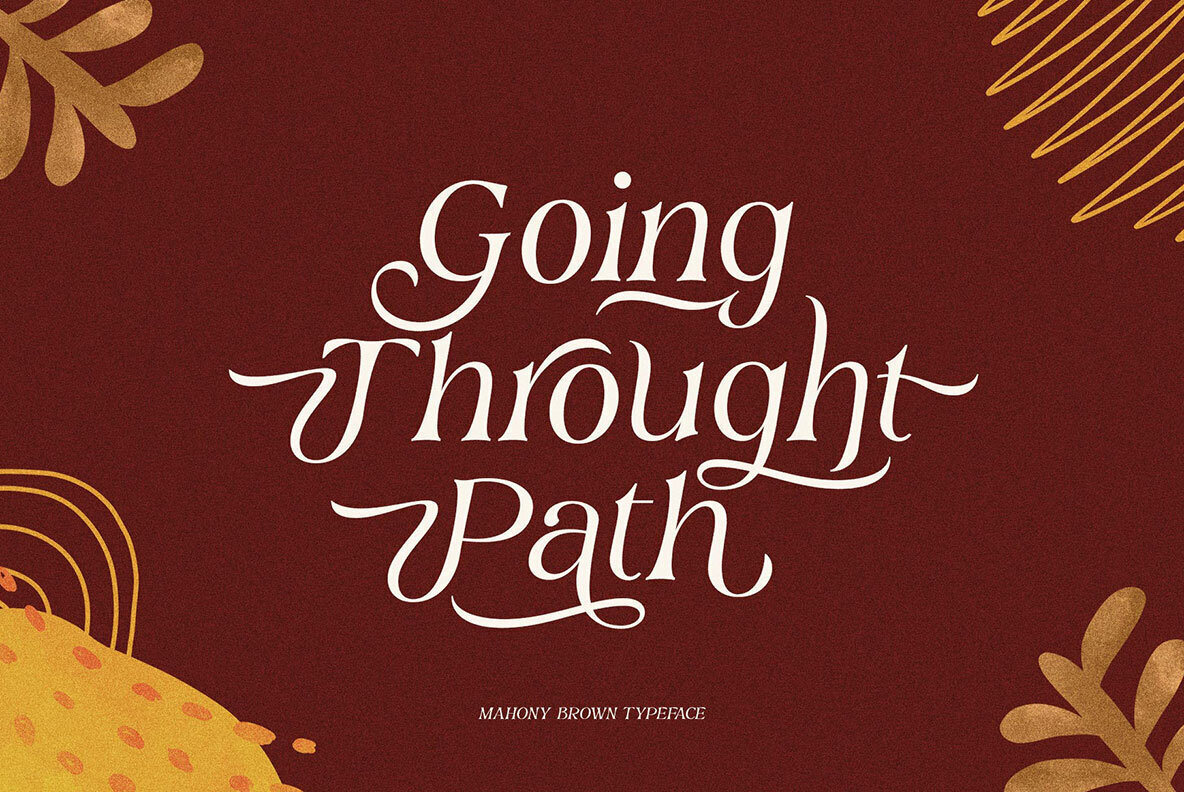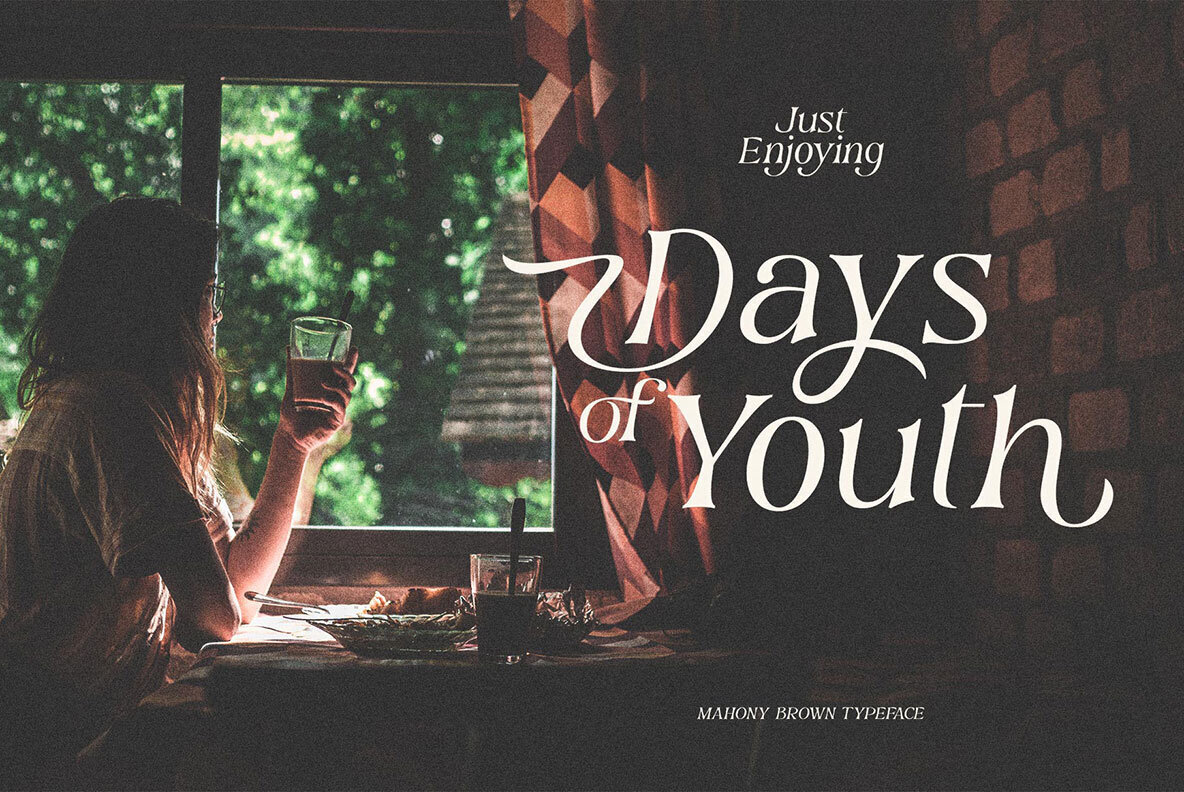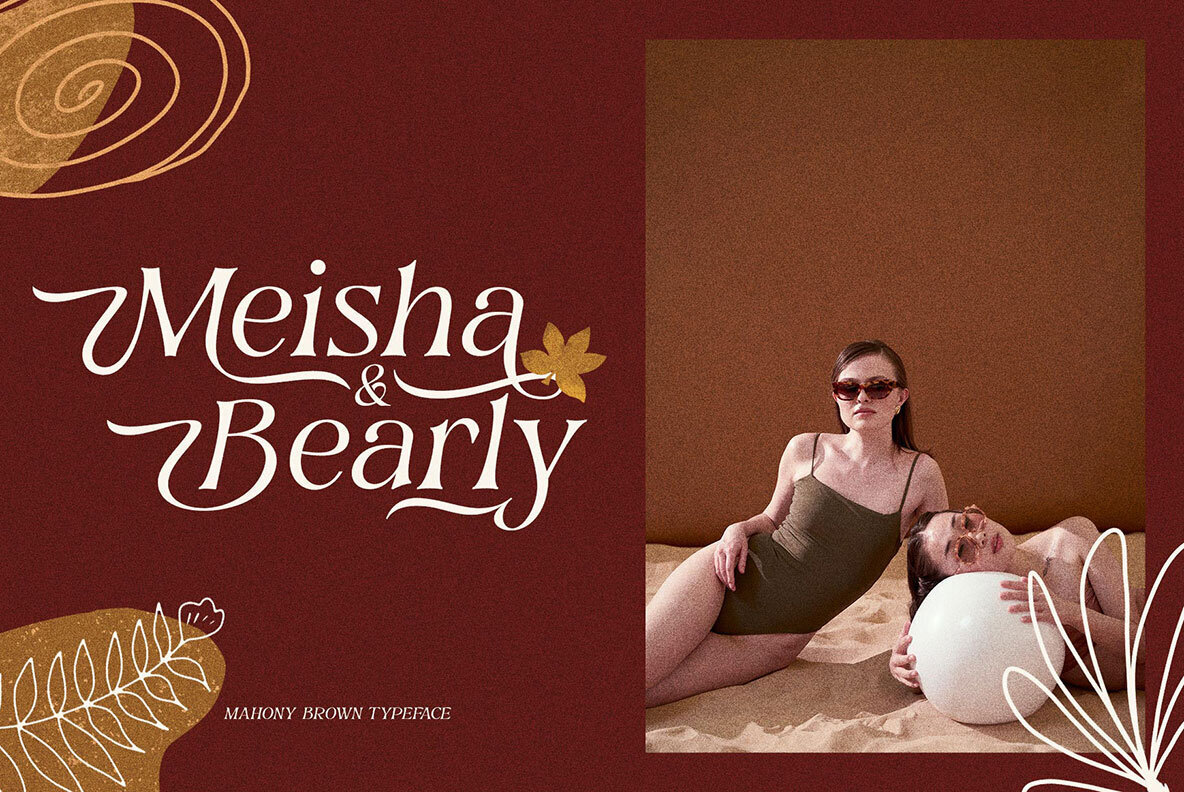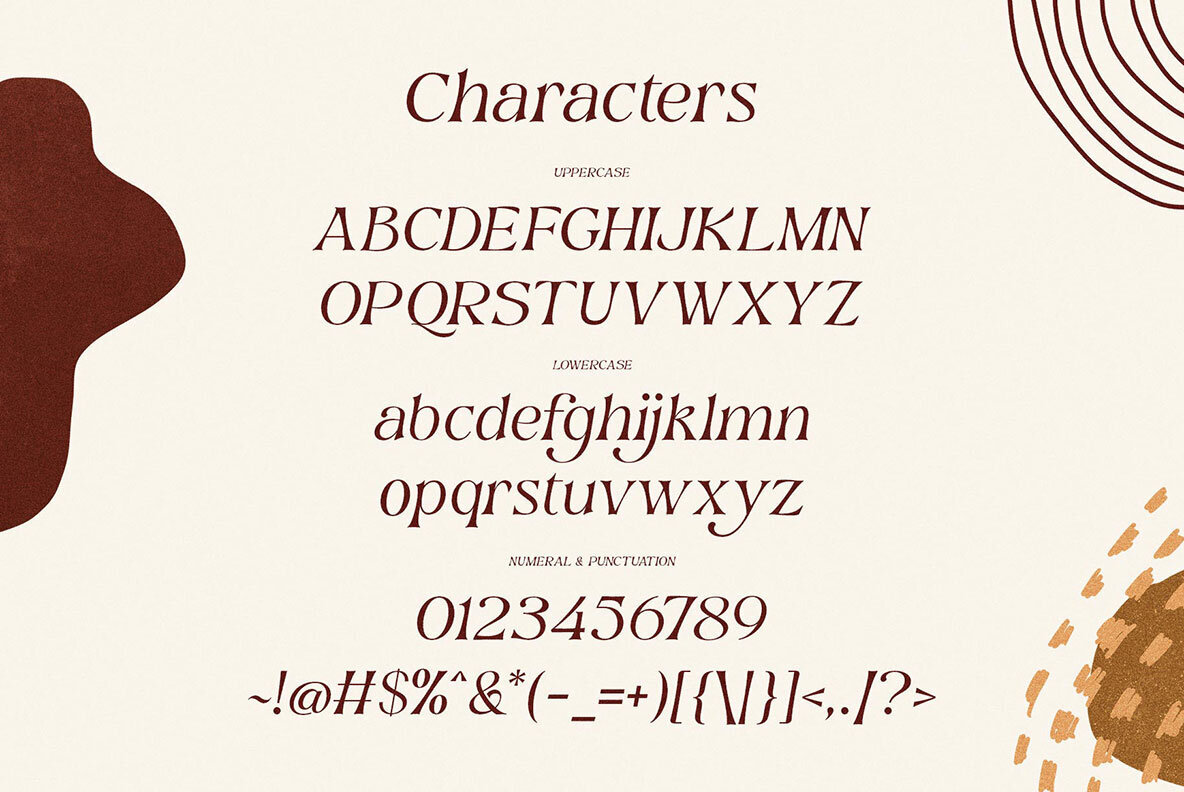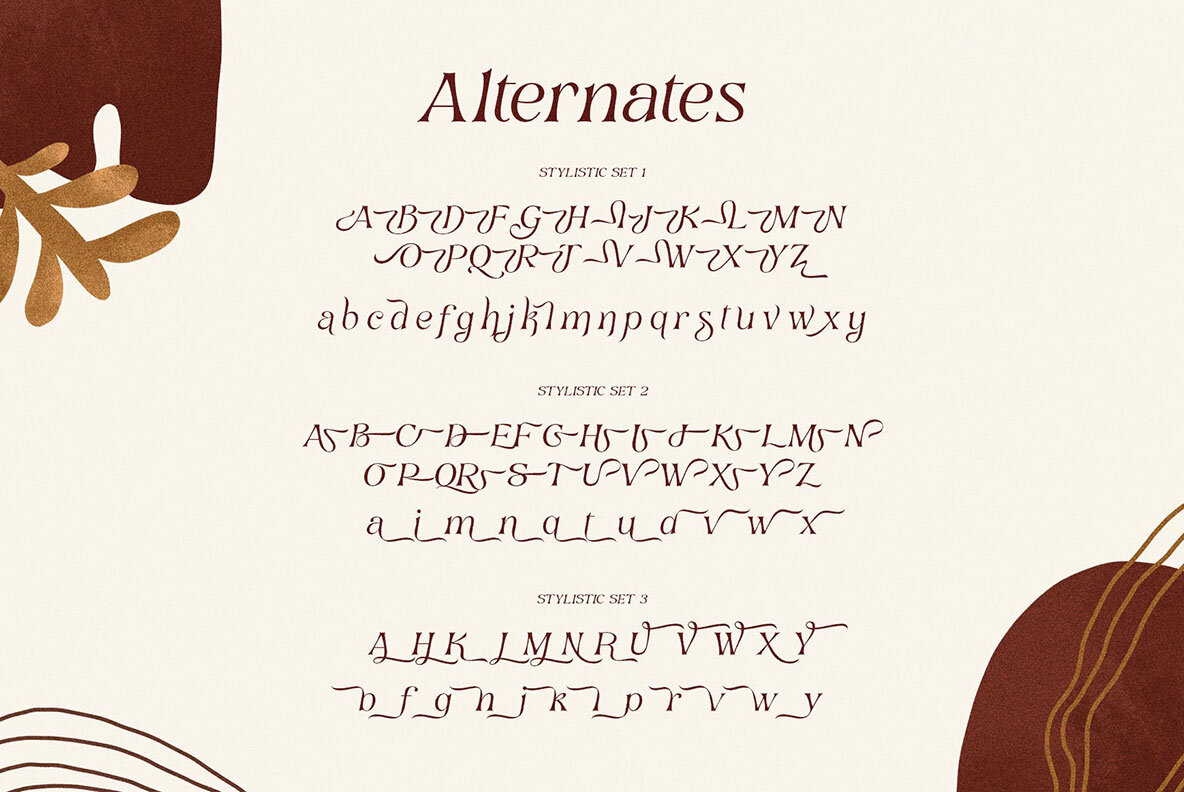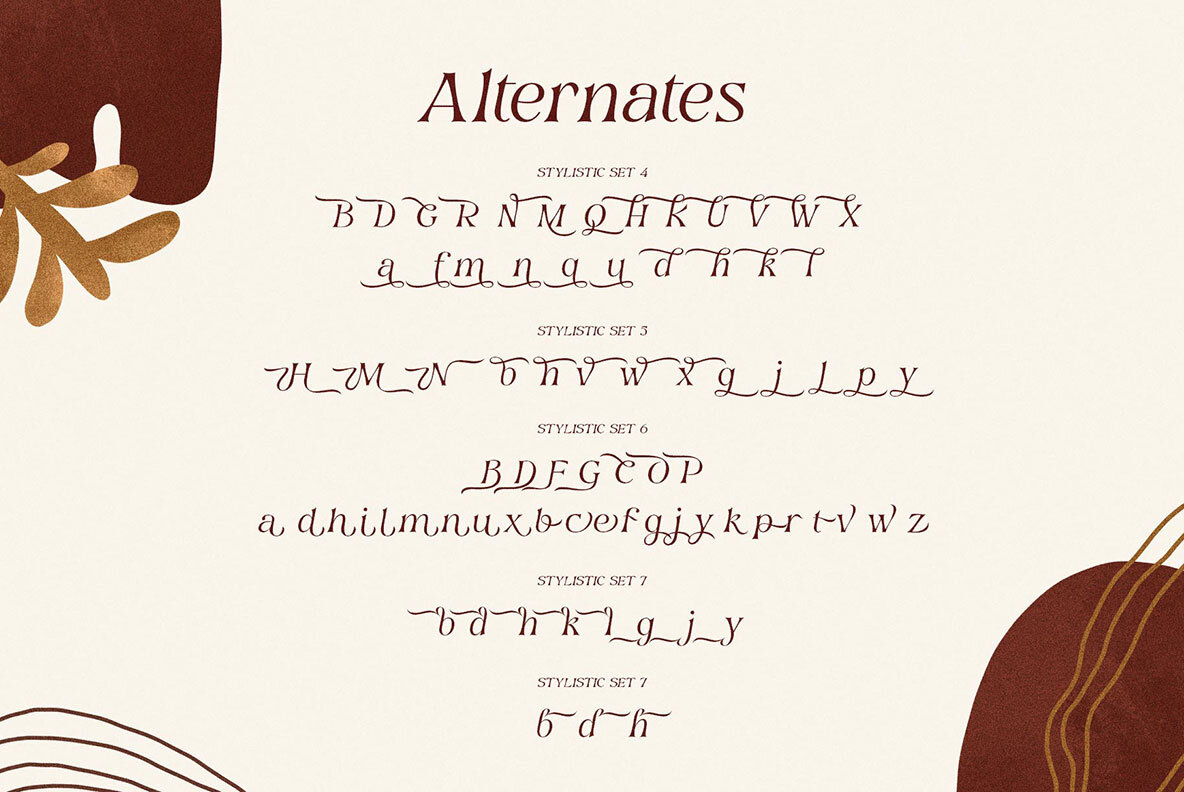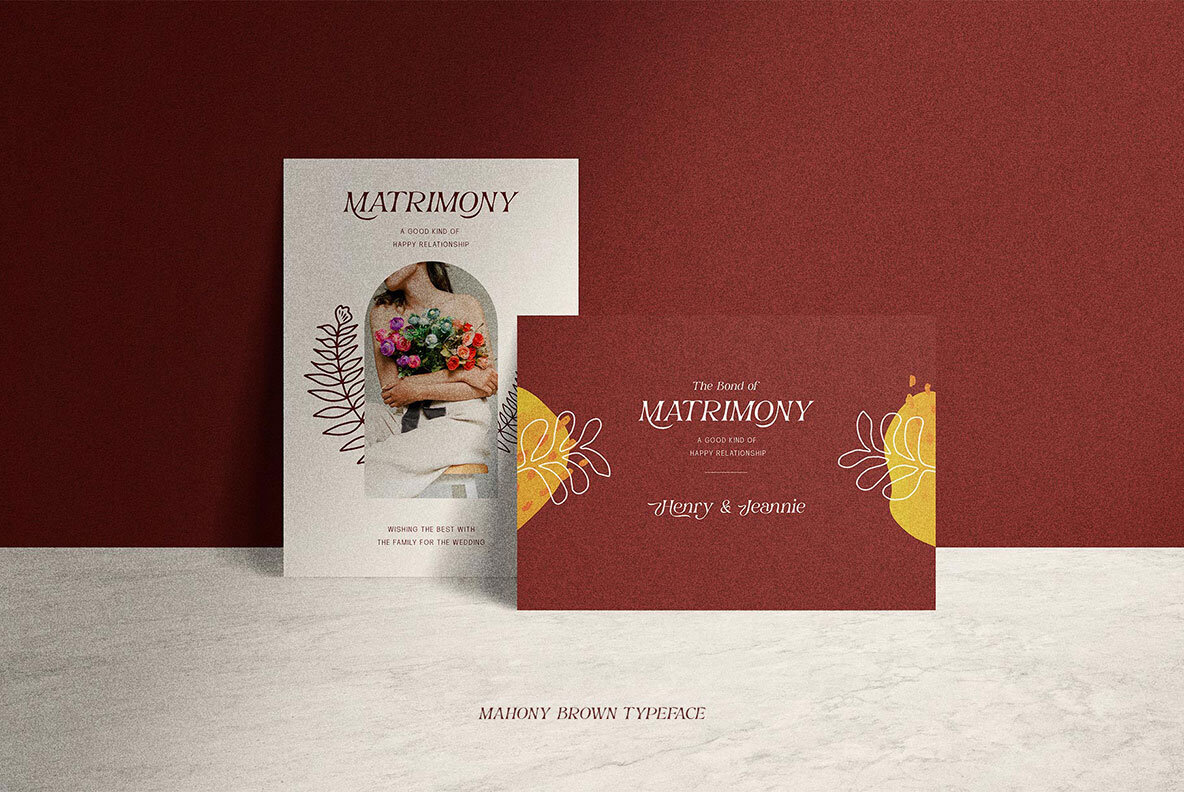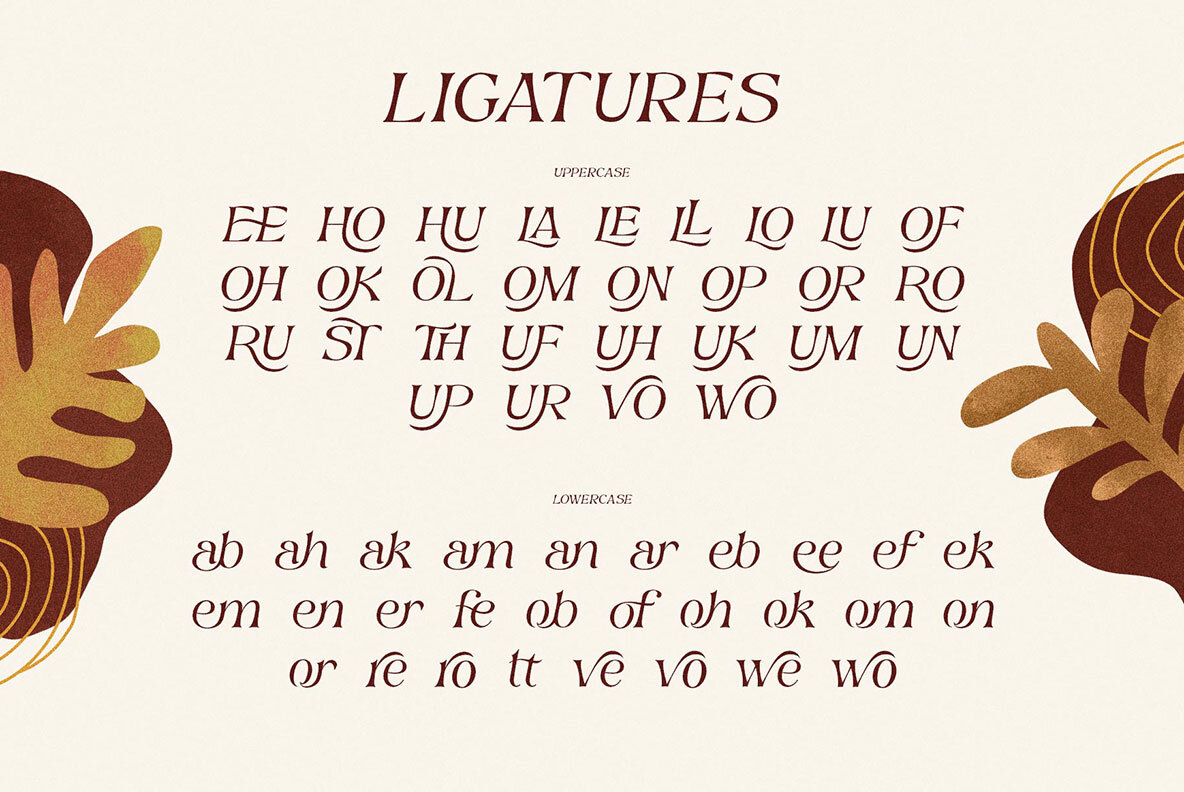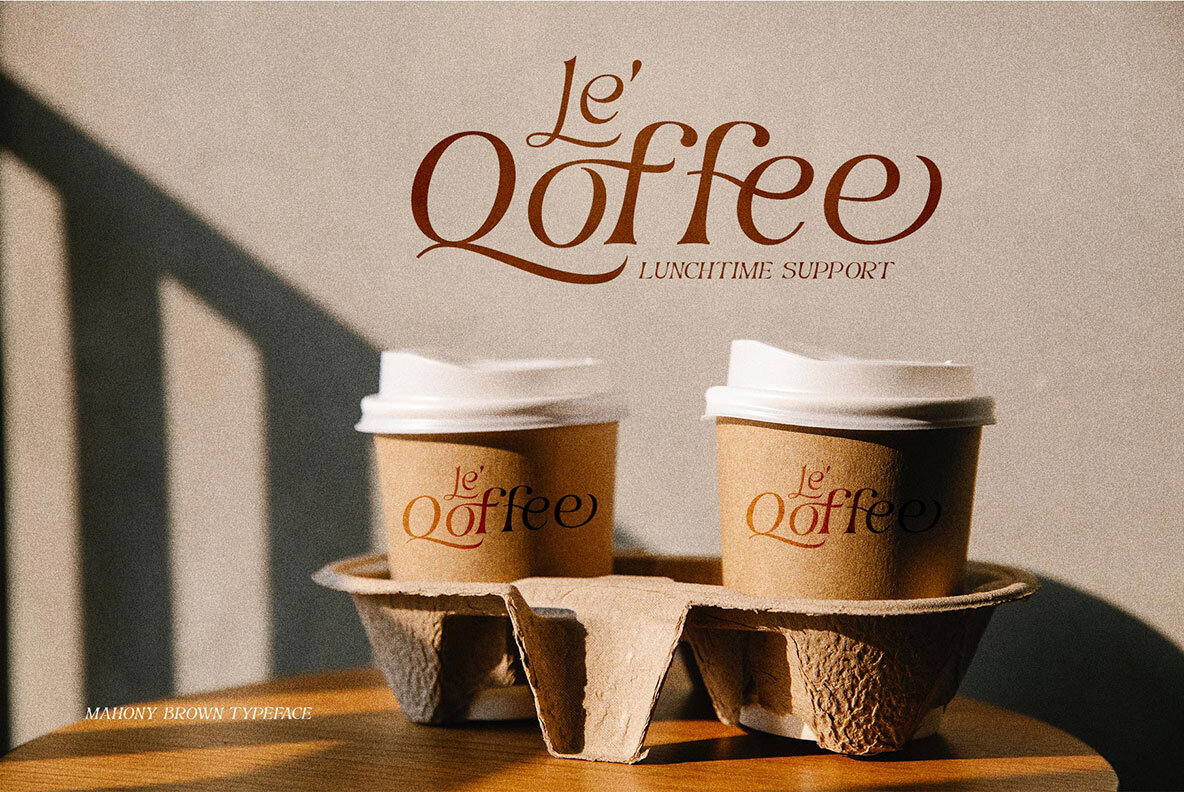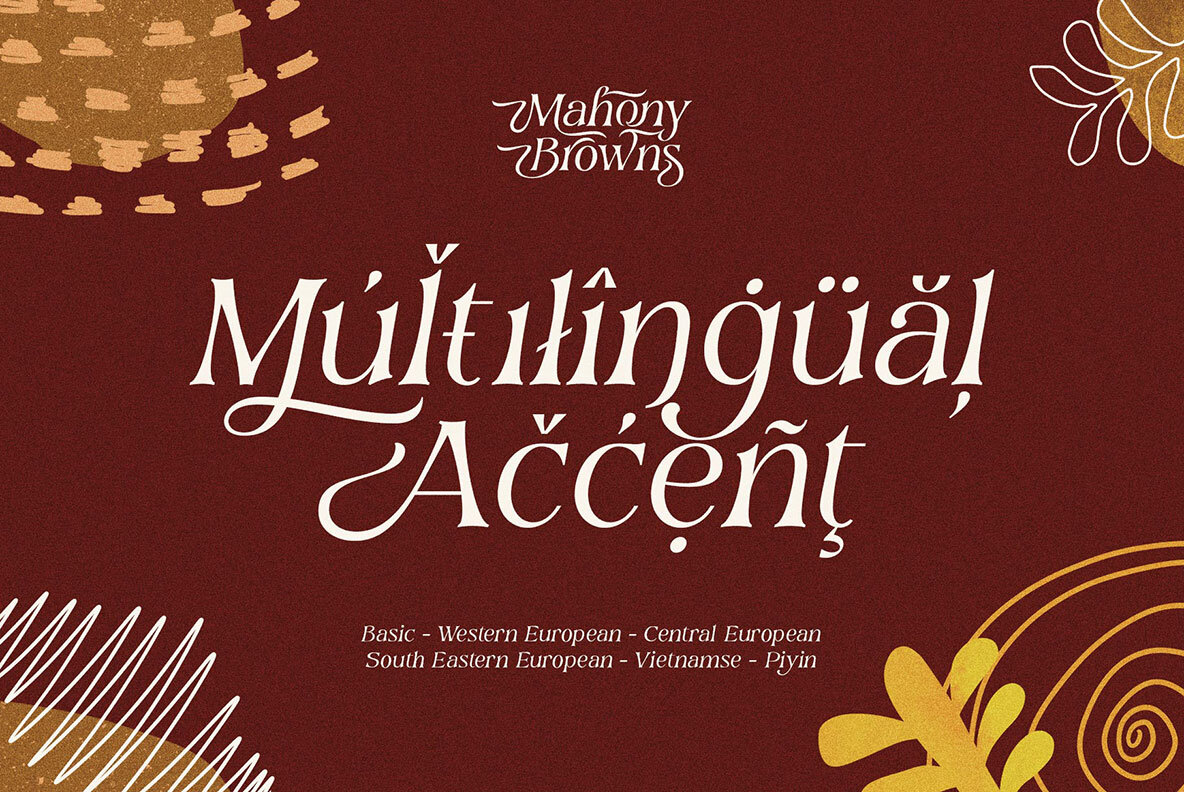
Mahony Browns Font
Mahony Browns Regular
The Mahony Browns serif typeface stands as a beacon of elegant design, employing a sophisticated serif style that flows naturally. Each detail of this font is meticulously crafted to form unique and striking curves, offering designers a tool that embodies both elegance and versatility. Mahony Browns fits seamlessly in projects that require a touch of refinement, making it suitable for varied applications.The Graceful Essence of Mahony Browns Serif Typeface